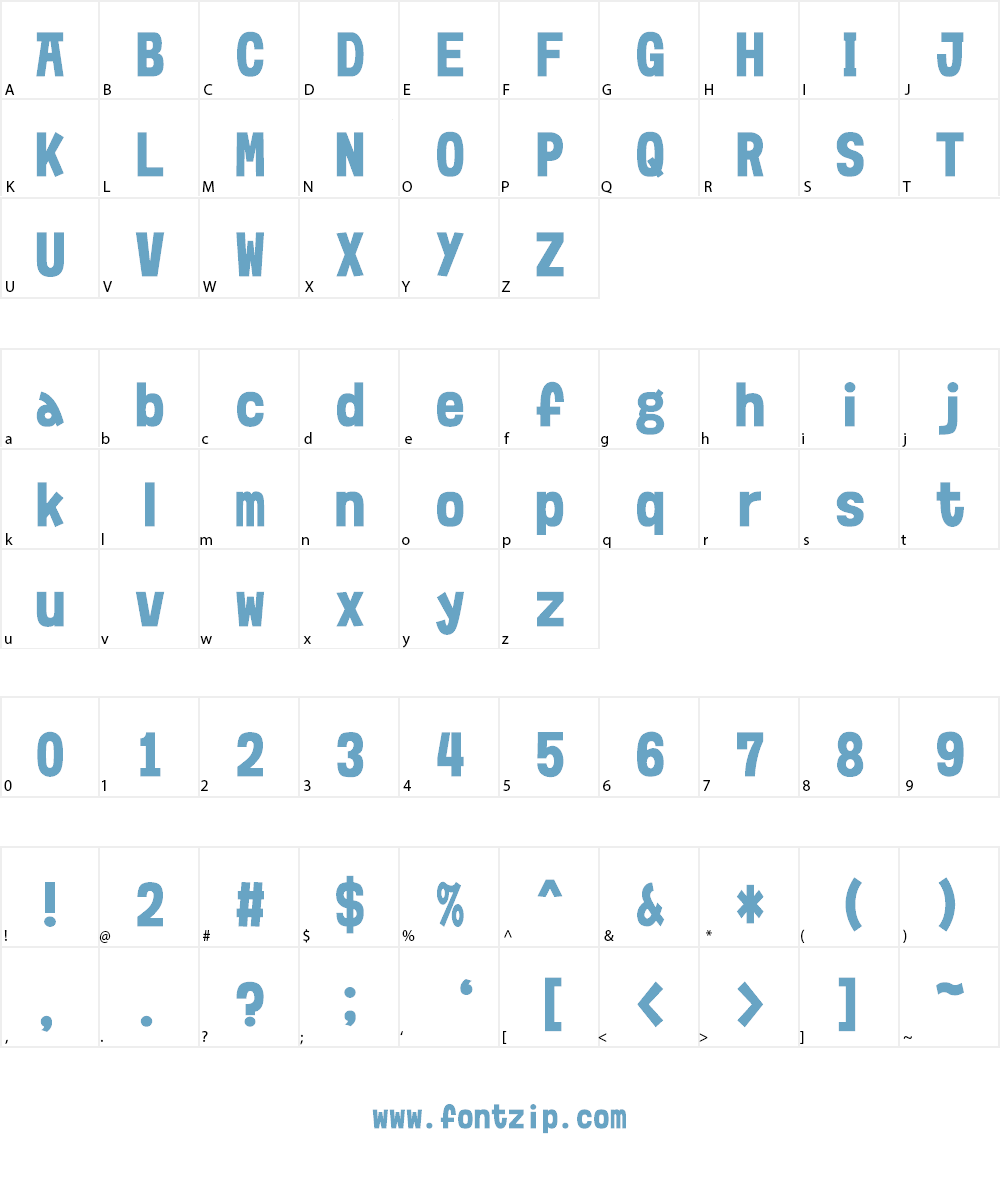
〈モシモジ〉
Glyphs with a lot of Moshi. Kana with a lot of Moji. A font that I think could be used in Moshi Monsters, even in the Japanese version.
This font contains accents, including the ones that are not part of general Japanese Pr6N fonts like: Ĕĕ, ģ (lowercase g with cedilla), Ĭĭ, Ŏŏ, ſ (long s), Ǻǻ, Ǽ (capital AE ligature with acute accent), Ǿǿ, Ẁẁ, Ẃẃ, Ẅẅ, and Ỳỳ, additional kanji, such as 丨, 乄, 刂, 啞, 塡, 岺, 忄, 扌, 柰, 氵, 氺, 泮, 湜, 灬, 爀, 犭, 玟, 璇, 璨, 瓚, 疒, 礻, 罒, 衤, 辶, 邙, 阝, 頰, 鮇, and 麵, and more symbols that don't appear on many Japanese Pr6N fonts like: ˉ ʹ ͵ ͺ ; · ‗ ‽ ⁻ ⁽ ⁾ ⁿ ₋ ₍ ₎ ₣ ₧ ℗ ☏ 〞 〱 〲 and double box drawings.
It even has alternatives for lowercase letters a and g so that your text could look like this:
Gɑzillions of ɡroovinɡ ɡɑzelles ɡɑve ɡrɑpes to ɡiɡɑntic ɡorillɑs.
Made in 2016 for Monospace Variant, and in 2017 for Proportional Variant.
Glyph Map from 70:DRAEMOJI. Kanji and additional symbols from Koruri. Extra Symbols and Enclosed Kanji from Keifont.